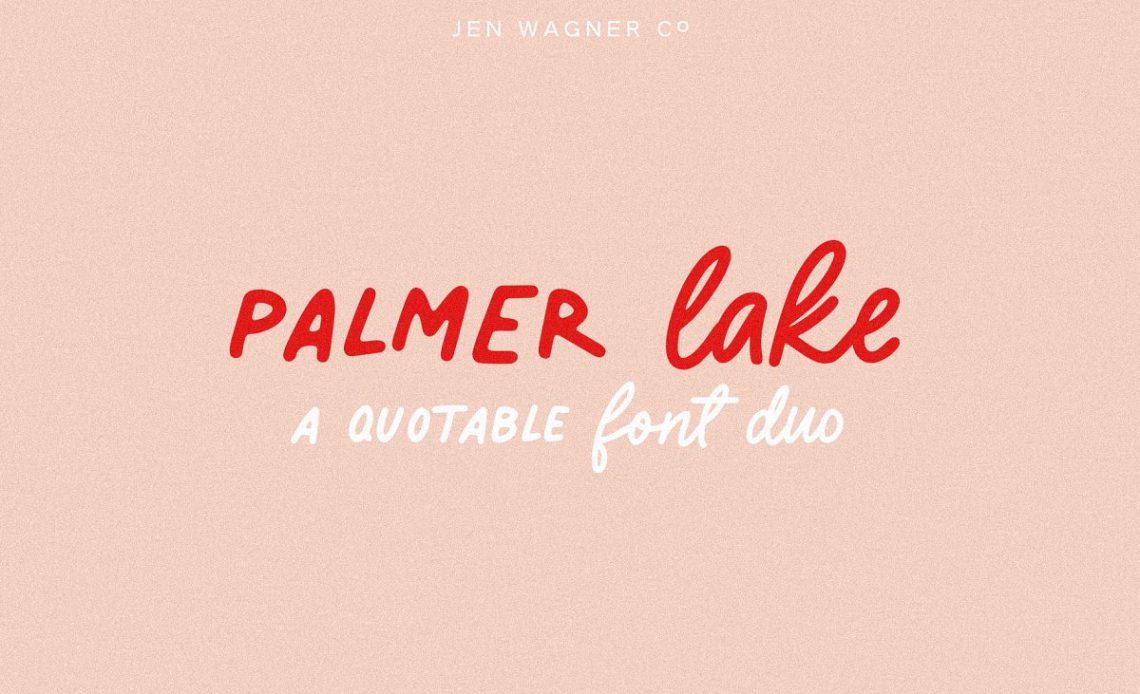
Looking for Fonts for Script Tattoos? Look no further than Palmer Lake, the perfect Quotable Font Duo! Created by the talented Jen Wagner, this script font family features two fonts - Palmer Lake Print and Palmer Lake Script.
Palmer Lake Print includes uppercase letters, numbers, and extended punctuation, while Palmer Lake Script features lowercase letters, numbers, and extended punctuation. Plus, with non-English support, Palmer Lake is perfect for international designers!
One of the best things about Palmer Lake is its same stroke thickness for both fonts. This means you won't need to make any time-consuming adjustments to get your text looking just right. And because the uppercase letters of the Print font are the same height as the lowercase letters of the Script font, creating beautiful quotes is easy and hassle-free.
Palmer Lake also comes with alternates for each letter, allowing for a variety of customization options. For instance, typing in all caps with the Script font will connect each letter, while typing in all lowercase will disconnect each letter. The possibilities are endless!
Whether you're creating quotes, logos, or just adding a hand-written touch to your project, Palmer Lake is the perfect choice. And with the duo's pencil textured SVG font, Oliver Label, you can take your designs to the next level.